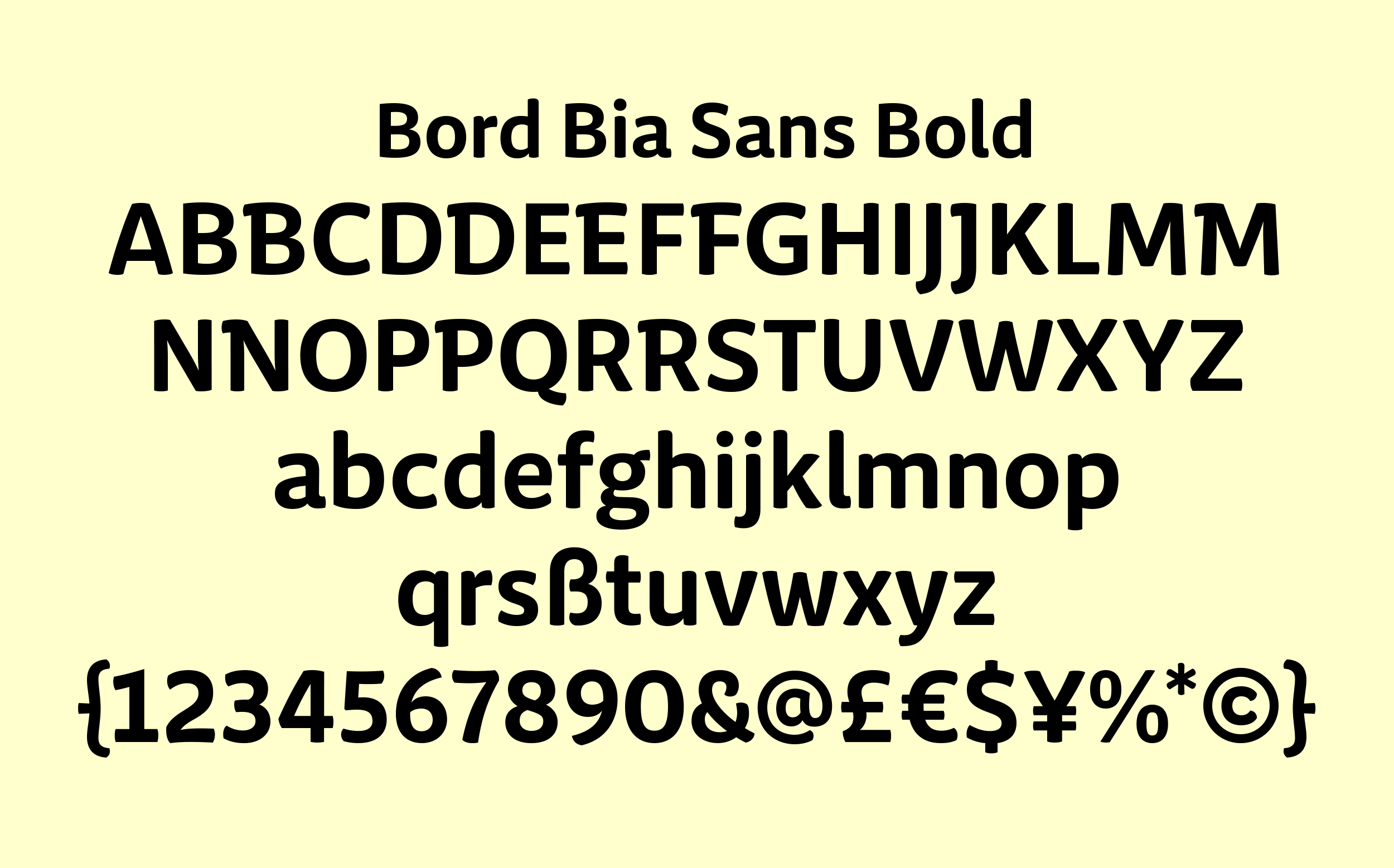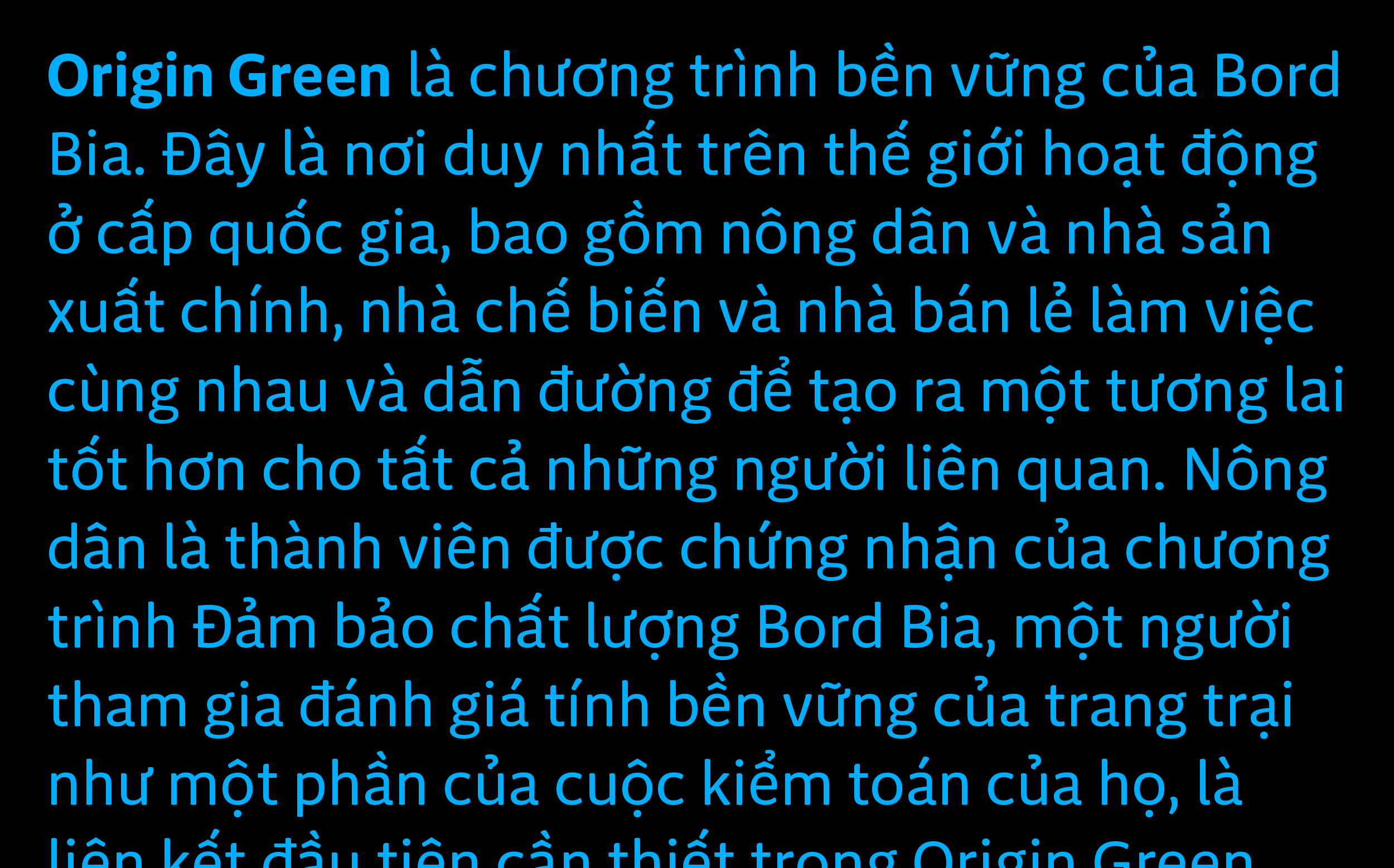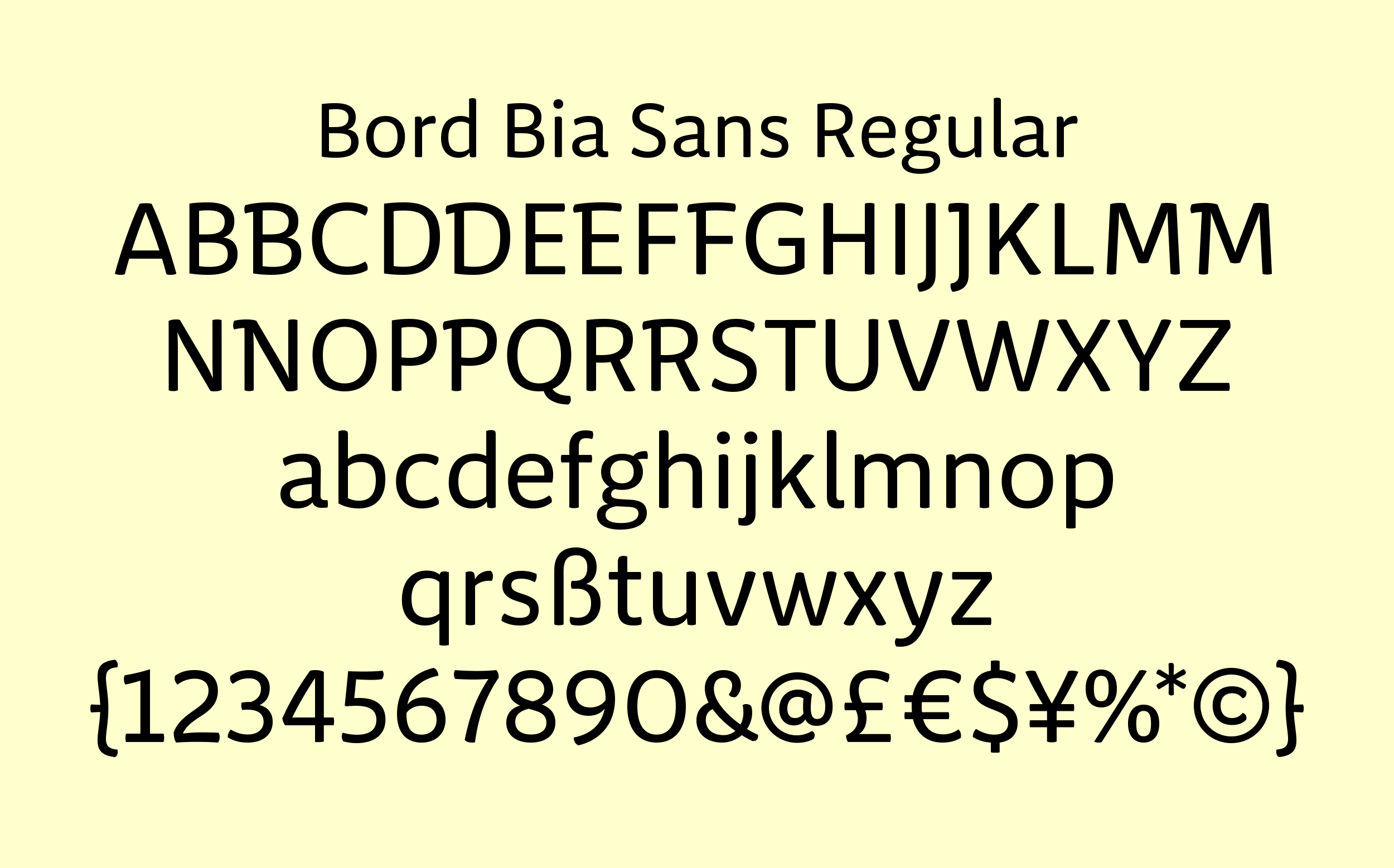
Bord Bia
Bord Bia, the Irish Food Board, promotes the Irish food, drink, and agriculture industries throughout Ireland, EMEA, Asia, and the US. Their websites, reports, and library of research publications provide technical information, market insights, and guides to sustainable practice for producers and consumers all over the world. So their 2020 rebrand, led by DesignWorks, had to support an extensive international publishing program.
Management agreed to commission a purpose-built typeface for the job. What Signal came up with is Bord Bia Sans, a two-weight humanist sans serif featuring open apertures and a soft finish. It’s designed to be practical and businesslike, though with a touch of the organic, and highly readable in a wide range of languages, including Vietnamese. A set of modest swash alternates help it harmonize with a new Bord Bia wordmark, produced in collaboration with Signal. Bord Bia Script, a brushy display face for consumer social campaigns, rounds out the brand’s typographic palette. Branding and print by DesignWorks.